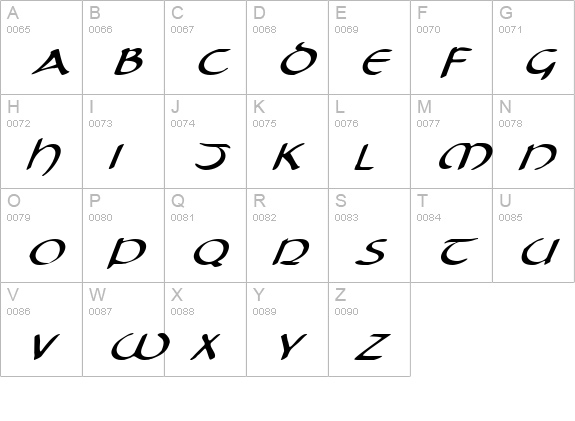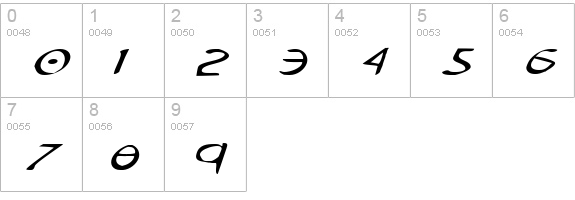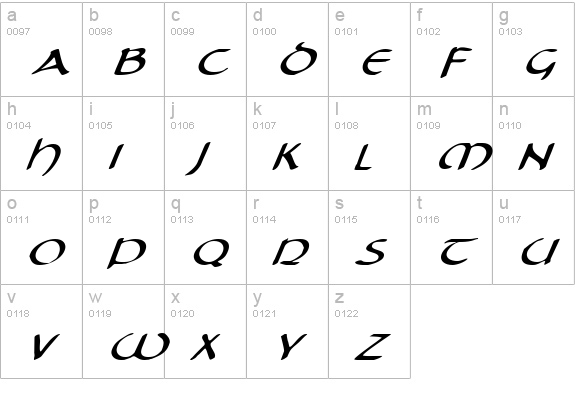
Tristram Expanded Italic is a distinctive, extended-width, italic variant in the Tristram typeface family \xE2\x80\x94 well suited to design and typography projects.
Tristram Expanded Italic font is a beautifully crafted typeface that exudes elegance and sophistication. Its sleek and elongated design adds a touch of modernity to any project, making it perfect for luxury branding, editorial design, and more. The italic style of Tristram Expanded adds a dynamic flair to your text, giving it a sense of movement and energy. What sets Tristram Expanded Italic font apart is not just its stunning appearance, but also the fact that it is completely free to download. Yes, you read that right - this exquisite font is freely available for you to use in your personal and commercial projects. Simply head over to FontsMarket.com to grab your own copy and start creating with this versatile typeface today. Don't miss out on the opportunity to elevate your designs with Tristram Expanded Italic font - download it now and let your creativity soar!